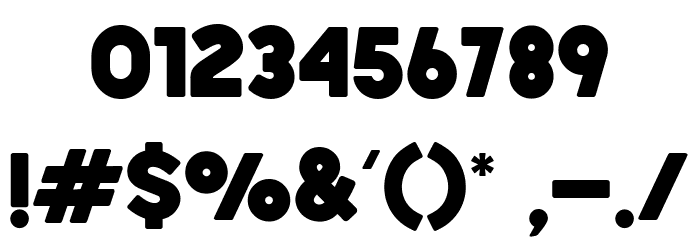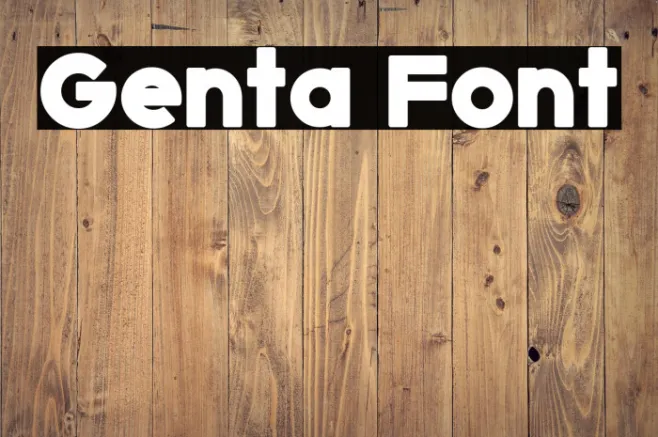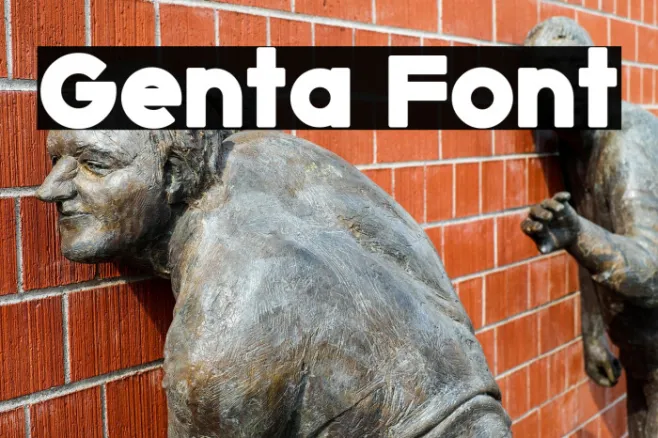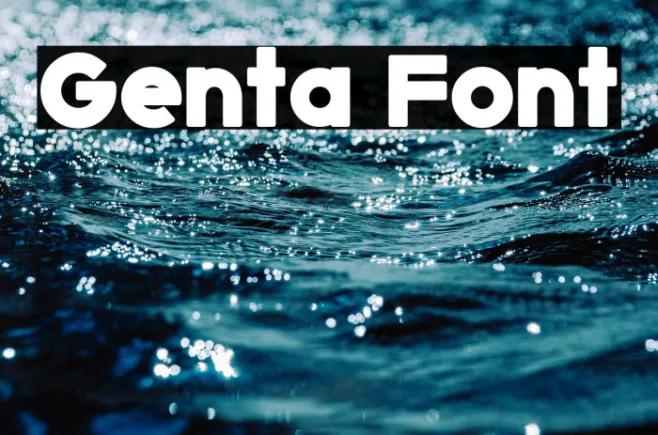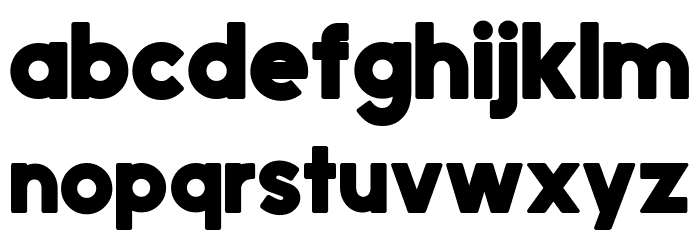
Genta Font
This font features a bold and modern sans-serif style with a strong geometric influence. The characters are well-balanced, with consistent stroke widths that give it a uniform appearance. The uppercase letters are solid and impactful, while the lowercase letters maintain a friendly and approachable look. The numerals are clear and easy to read, making them suitable for various applications. Special characters are included, adding versatility to the font's use. The overall design is clean and contemporary, making it ideal for projects that require a strong visual presence.
A bold, modern sans-serif font with geometric influences and consistent stroke widths.
• Proposed Projects: Ideal for branding, advertising, headlines, posters, and digital media projects.
• Category: Sans-Serif
• Bold: Yes
• Italic: No
• Weight: Bold
• Width: Normal
• Character Spacing: Normal
• Contrast: Low
• Overall Style: Modern
• Use Case: Headlines, Logos, Branding